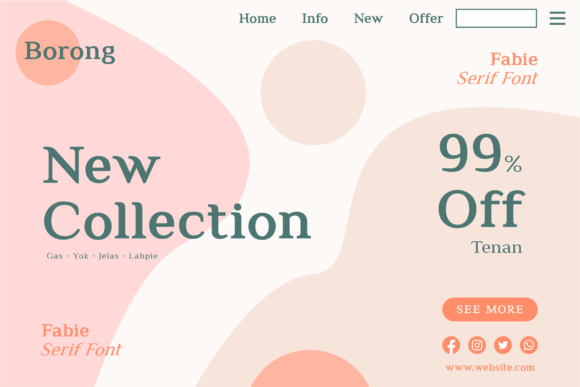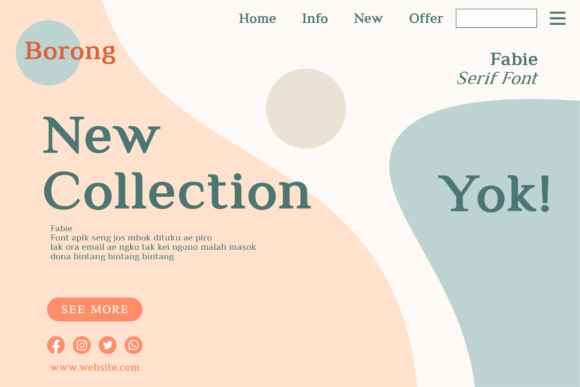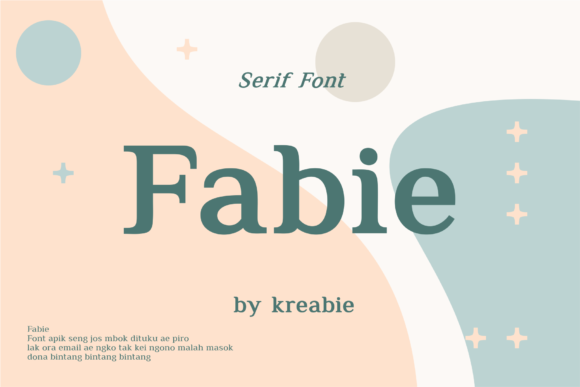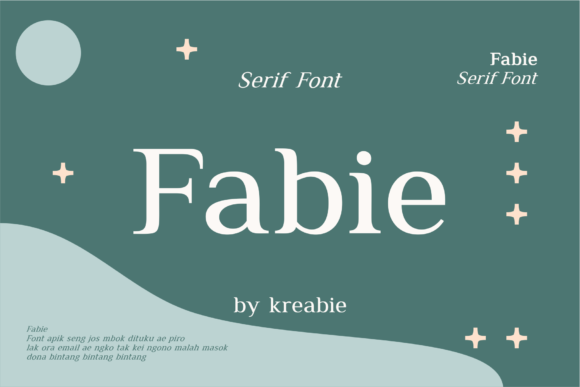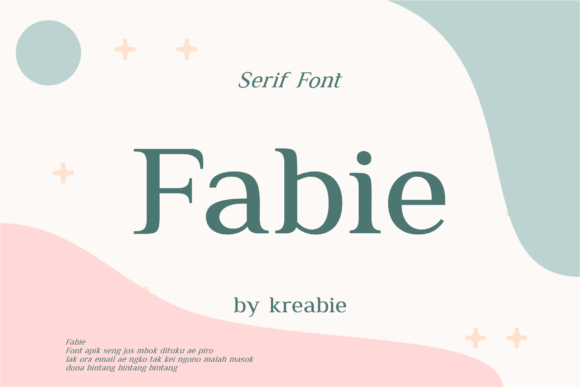
Introducing Fabie Font: The Elegant and Versatile Serif Choice for Designers
When it comes to selecting the perfect font for a design project, the options can be overwhelming. However, if you’re looking for a font that exudes elegance, versatility, and beauty, look no further than Fabie Font. This stunning serif font is perfect for both formal and informal designs, making it an excellent addition to any designer’s toolkit.
What is Fabie Font?
Fabie Font is a carefully crafted serif font that boasts a unique blend of classic and modern elements. Its elegant design makes it an ideal choice for a wide range of applications, from luxury branding and high-end magazines to personal crafts and DIY projects. Whether you’re looking to create a sophisticated and professional look or something more playful and creative, Fabie Font is the perfect choice.
Key Features of Fabie Font
So, what sets Fabie Font apart from other serif fonts on the market? Here are just a few of its key features:
- Elegant Design: Fabie Font features a beautiful, refined design that is perfect for creating sophisticated and professional-looking text.
- Versatility: This font is incredibly versatile, making it suitable for use in a wide range of applications, from formal and informal designs to digital and print projects.
- Beautiful Serif Details: The serif details on Fabie Font are exquisite, adding a touch of elegance and sophistication to any design.
- Easy to Read: Despite its elegant design, Fabie Font is incredibly easy to read, making it perfect for use in body text and other applications where readability is key.
Uses for Fabie Font
So, what can you use Fabie Font for? The possibilities are endless! Here are just a few ideas to get you started:
- Luxury Branding: Use Fabie Font to create sophisticated and professional-looking logos, business cards, and other branding materials.
- Magazines and Newspapers: This font is perfect for use in high-end magazines and newspapers, adding a touch of elegance and sophistication to your publication.
- Wedding and Event Planning: Fabie Font is a popular choice for wedding and event planning, adding a touch of romance and sophistication to your invitations, menus, and other materials.
- Crafts and DIY Projects: This font is also perfect for use in personal crafts and DIY projects, such as scrapbooking, journaling, and card making.
Why Choose Fabie Font?
So, why should you choose Fabie Font for your next design project? Here are just a few reasons:
- Unique Design: Fabie Font features a unique and elegant design that will set your project apart from the competition.
- High-Quality: This font is crafted to the highest standards, ensuring that it will look great in any application.
- Easy to Use: Fabie Font is incredibly easy to use, making it perfect for designers of all skill levels.
| Font Name | Fabie Font |
| Author | kreabie |
In conclusion, Fabie Font is an elegant, versatile, and beautiful serif font that is perfect for designers and crafters looking to add a touch of sophistication and elegance to their projects. With its unique design, high-quality craftsmanship, and ease of use, Fabie Font is an excellent choice for a wide range of applications. Whether you’re working on a formal or informal design, this font is sure to impress. So why wait? Download Fabie Font today and start creating stunning designs that will leave a lasting impression!